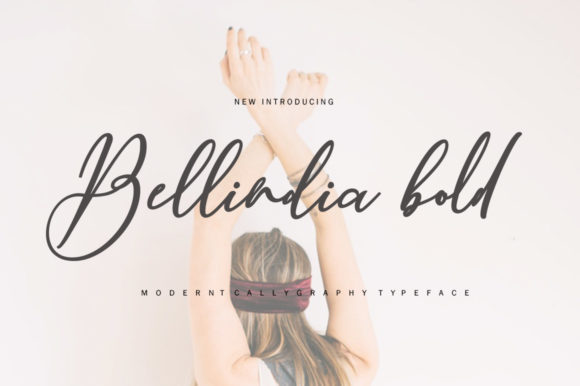
Bellindia Font
Add a touch of sophistication and elegance to your creative projects with our enchanting Bellindia Font. This exquisite script font is meticulously crafted to evoke the charm and fluidity of handwritten artistry.
Indulge in the beauty of its graceful curves and flowing strokes, which bring a hint of timeless allure to your designs. Whether you're creating stunning wedding invitations, captivating magazine layouts, or adding a touch of charm to your brand, the Bellindia Font is an unparalleled choice.
Its versatility shines in a myriad of applications, from stylish mugs to captivating posters. Let your imagination soar as you explore the endless possibilities this font offers. Every letter and symbol is meticulously designed to blend harmoniously, creating a visual symphony that captivates and inspires.
With each stroke, Bellindia Font invites you to embrace the art of storytelling. Its enchanting allure will elevate your designs, leaving an enduring impression on your audience. Discover the power of elegant typography and make your creative dreams a reality.